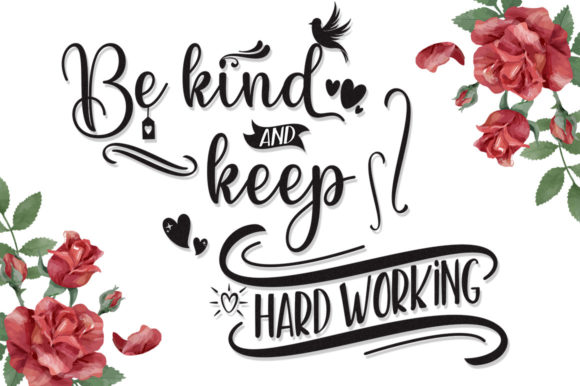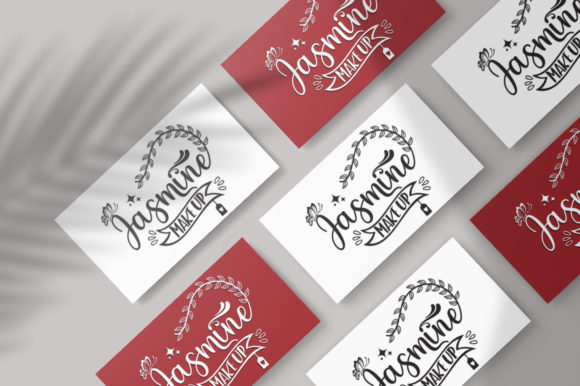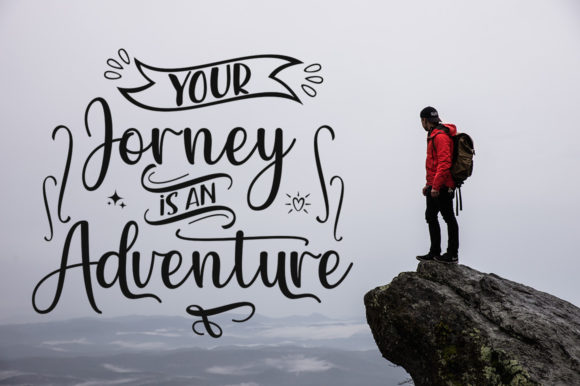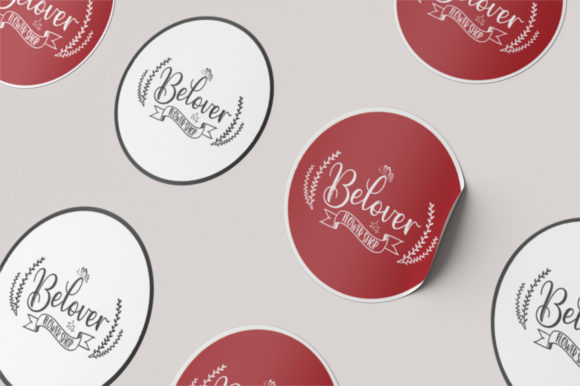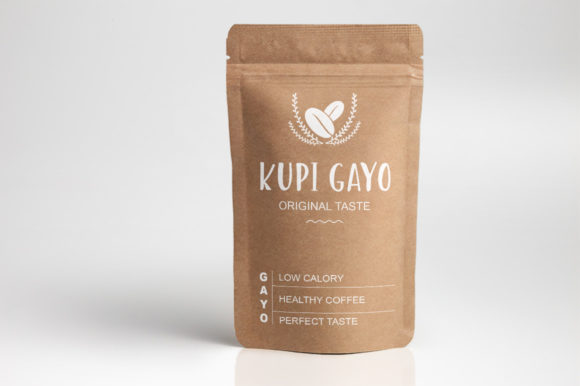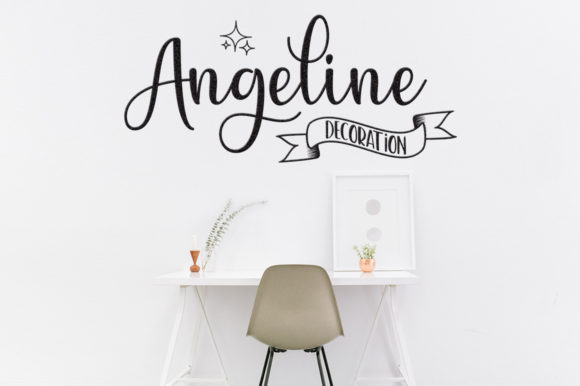
Better Dreams Font: Elevate Your Designs with this Spectacular Duo Font
Are you tired of using the same old fonts in your designs? Look no further than Better Dreams Font, a stunning duo font that combines a sleek sans serif and a beautiful script. This versatile font is perfect for designers and crafters who want to take their creations to the next level. In this article, we’ll dive into the features and benefits of Better Dreams Font and explore how it can elevate your designs.
What is Better Dreams Font?
Better Dreams Font is a duo font that consists of two complementary fonts: a modern sans serif and an elegant script. The sans serif font is clean and minimalist, while the script font is flowing and cursive. Together, they form a perfect pair that can be used for a wide range of design projects. Whether you’re creating a logo, branding materials, or social media graphics, Better Dreams Font is the perfect choice.
Key Features of Better Dreams Font
- Versatility: Better Dreams Font is incredibly versatile, making it suitable for a wide pool of designs. From modern and edgy to elegant and sophisticated, this font can adapt to any style or theme.
- High-Quality Design: The font is designed with high-quality craftsmanship, ensuring that it looks great in any size or resolution.
- Easy to Read: The sans serif font is easy to read, even at small sizes, making it perfect for body text or captions.
- Unique and Creative: The script font adds a touch of elegance and sophistication to any design, making it perfect for headlines, titles, or quotes.
Benefits of Using Better Dreams Font
So, why should you choose Better Dreams Font for your designs? Here are just a few benefits:
- Elevate Your Designs: Better Dreams Font can instantly elevate your designs to the highest levels, making them stand out from the crowd.
- Save Time: With Better Dreams Font, you can create professional-looking designs in no time. The font is easy to use and doesn’t require any special design skills.
- Increase Creativity: The versatility of Better Dreams Font means you can experiment with different styles and themes, unlocking your full creative potential.
- Perfect for Crafters: Whether you’re a DIY crafter or a professional designer, Better Dreams Font is perfect for a wide range of crafting projects, from papercraft to mixed media.
How to Use Better Dreams Font
Using Better Dreams Font is easy. Here are a few tips to get you started:
- Pair the Fonts: Use the sans serif and script fonts together to create a stunning contrast that adds visual interest to your designs.
- Experiment with Sizes: Play around with different font sizes to create a hierarchy of text that guides the viewer’s eye.
- Add Colors: Use your brand colors or experiment with different color combinations to add an extra layer of personality to your designs.